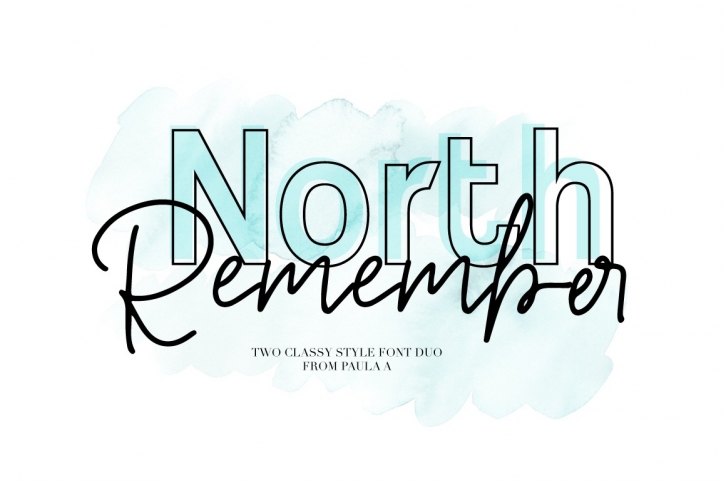
North Remember font Duo Download
North Remember font Duo Font Download
North Remember Duo is a gorgeous font that was realeased on June 5, 2018. The font can be used in many style contexts and design environments. Perfect for invitations, magazines, websites, logos, and more! It was designed by Paula Type and the file size is 9.82 MB. Thanks for checking out this font!